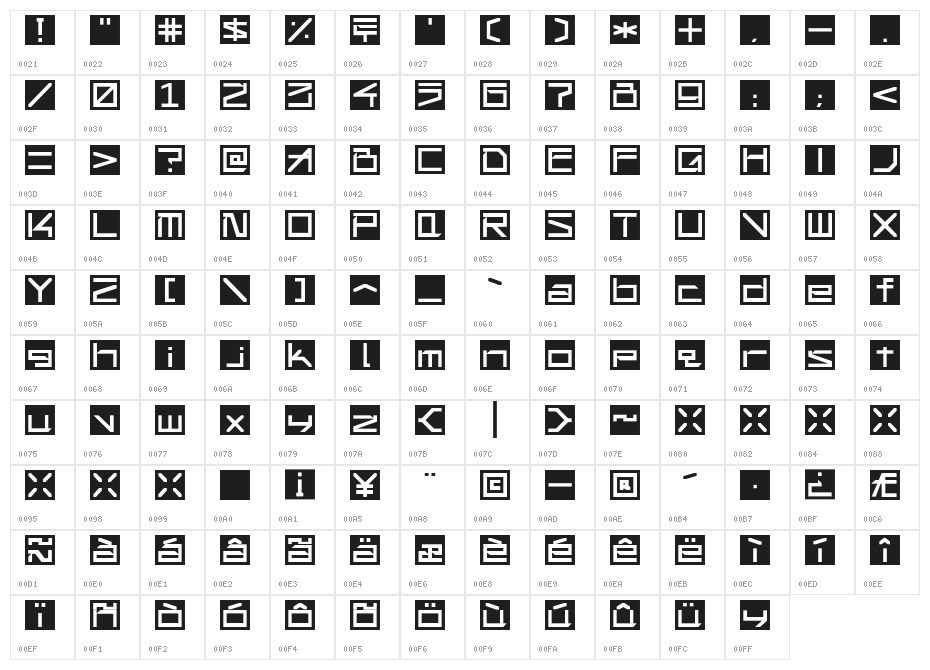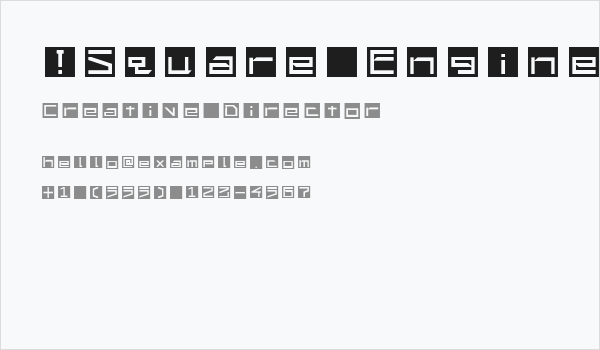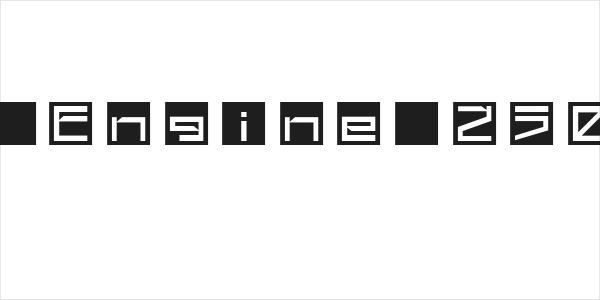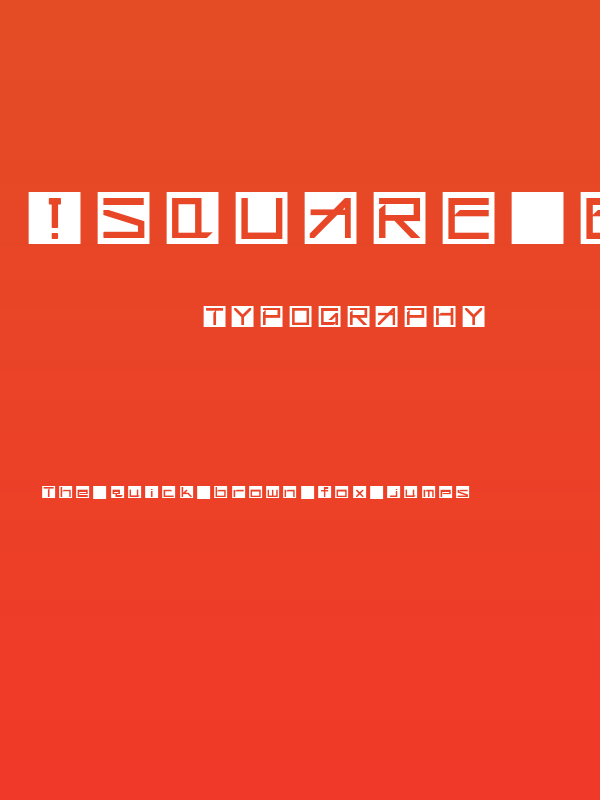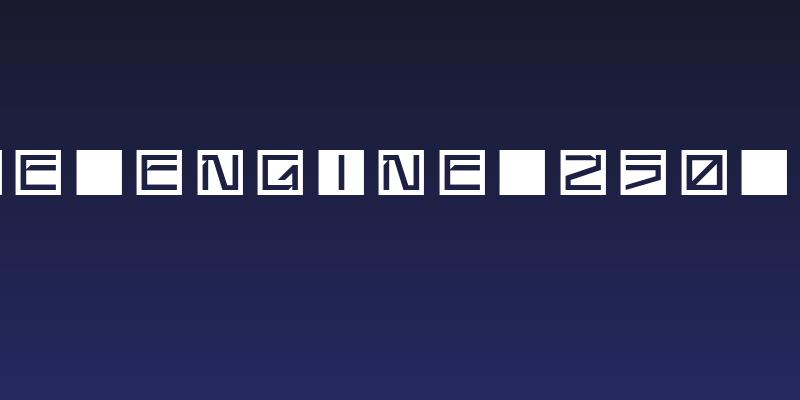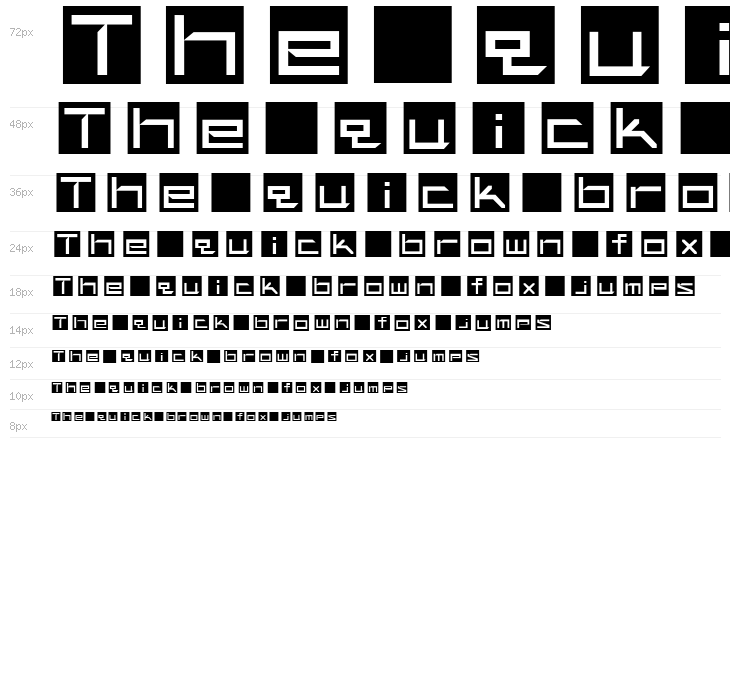
!Square Engine 250 Reflex Font
!Square Engine 250 Reflex Description
This font features a bold, geometric design with a strong emphasis on angular shapes and sharp edges. Each character is enclosed within a square, creating a uniform and structured appearance. The uppercase and lowercase letters maintain a consistent style, with distinct diagonal cuts and a futuristic aesthetic. Numbers and special characters follow the same design principles, ensuring a cohesive look across all elements. The font's high contrast and blocky form make it stand out, ideal for projects that require a modern and edgy feel.
Proposed ProjectsIdeal for technology branding, video game titles, sci-fi posters, and modern digital interfaces.